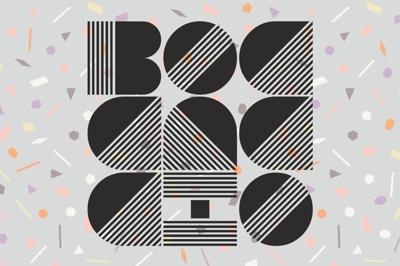
Eubergine Font is excellent for Mediterranean cuisine branding, gourmet restaurant menus, organic farm-to-table marketing, vegetarian food packaging, artisanal cooking workshops, European culinary magazines, sophisticated dining establishments, premium produce labeling, and elegant food festival materials.
What makes Eubergine Font so exciting is its sophisticated culinary elegance that perfectly captures the rich flavors and Mediterranean sophistication of European gastronomy and artisanal food culture. This appetizing typeface features refined letterforms with organic curves and gourmet proportions that evoke the deep purple beauty of Mediterranean eggplant and the refined artistry of European cooking traditions. The font's distinctive character incorporates the warmth of Mediterranean hospitality while maintaining exceptional readability, making it ideal for culinary brands seeking to communicate quality, authenticity, and gastronomic excellence.
Eubergine Font includes a flavorful family with Regular, Bold, Light, and Italic variations, each maintaining the signature culinary aesthetic while offering different levels of gourmet emphasis for various food and dining applications. Additional culinary ornaments and Mediterranean decorative elements provide extra creative possibilities for designers working on food and restaurant projects.
Whether you're developing sophisticated culinary brands, creating gourmet marketing materials, or designing elegant dining campaigns, Eubergine Font Free Download delivers the sophistication and culinary authenticity that Mediterranean food projects require. Its versatile nature makes it suitable for both digital restaurant content and print culinary applications while maintaining consistent gourmet appeal across all dining platforms. This exceptional typeface brings genuine Mediterranean flavor to your designs, ensuring your message communicates culinary excellence and sophistication that resonates with food enthusiasts who appreciate European gastronomy and value design that celebrates the wonderful artistry and rich traditions of Mediterranean cuisine and fine dining experiences.